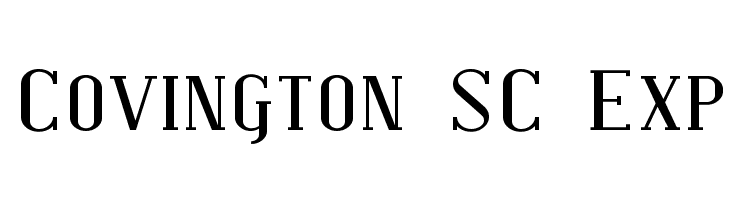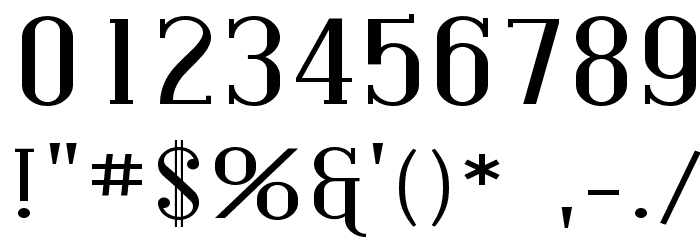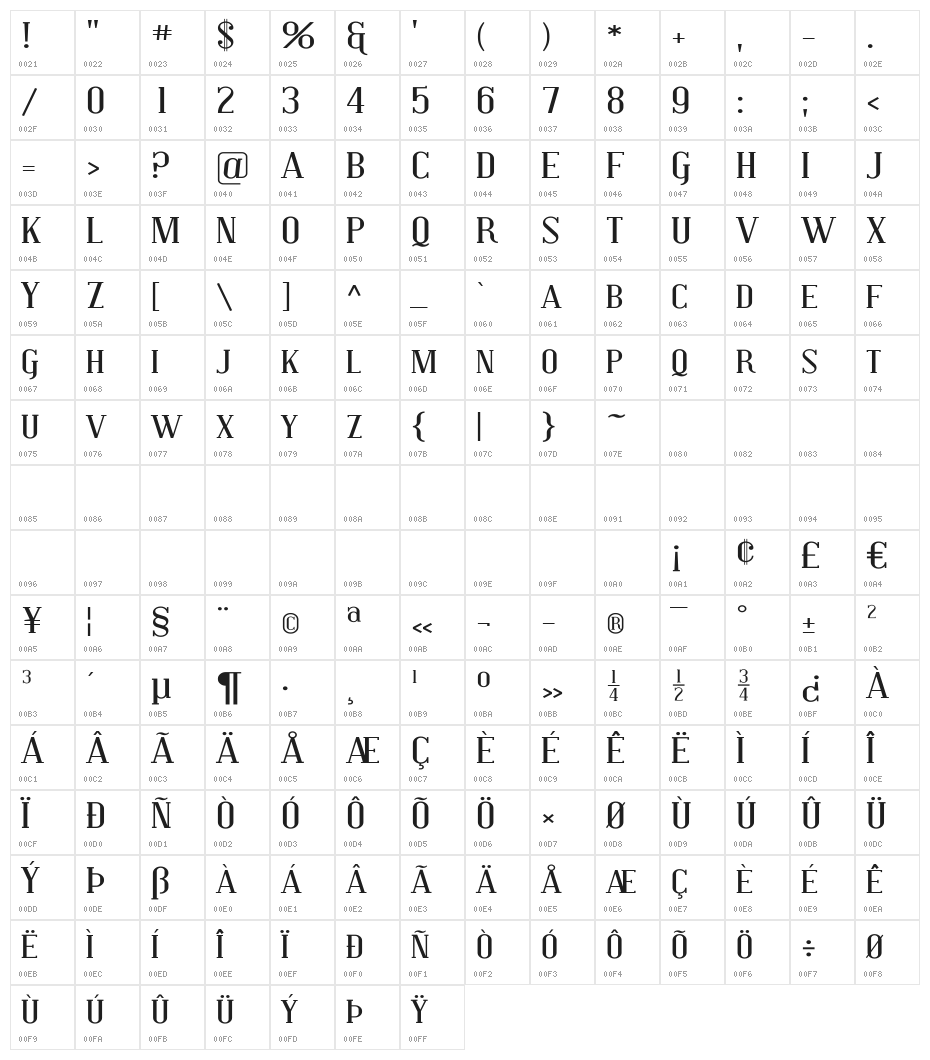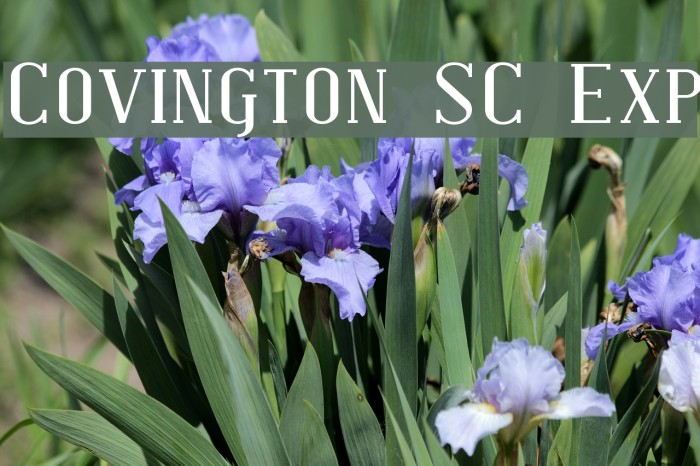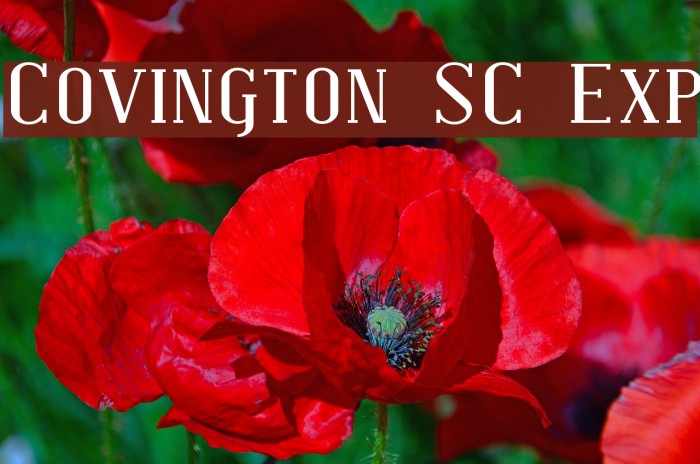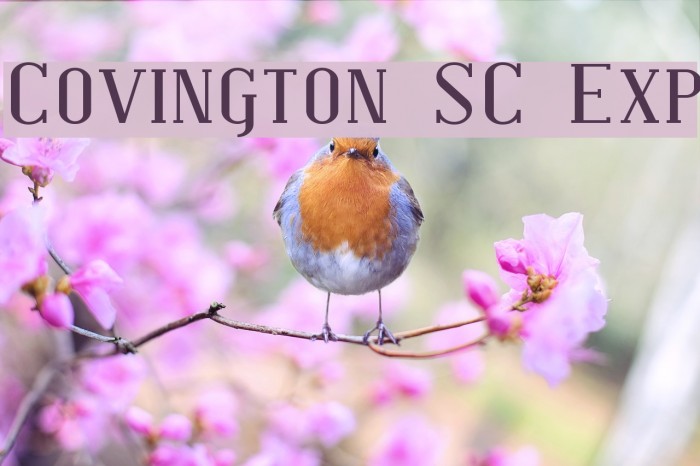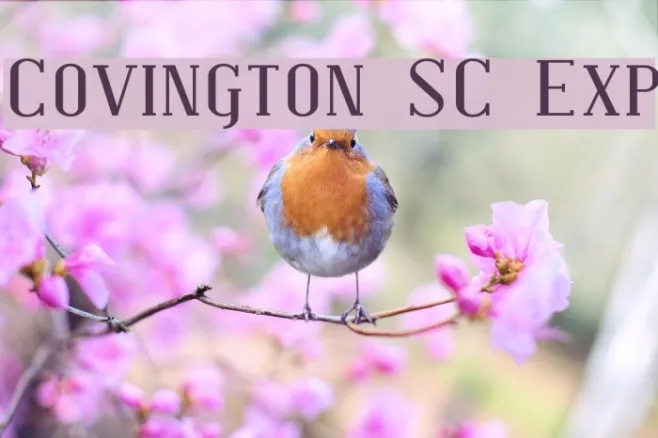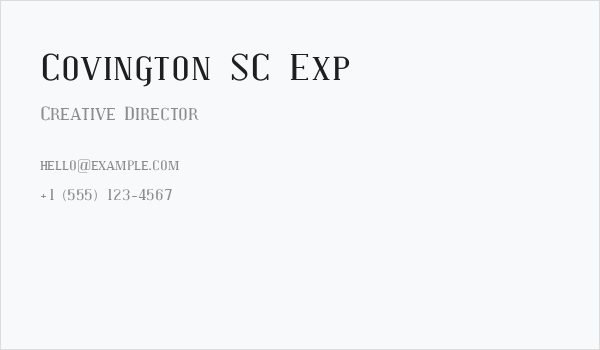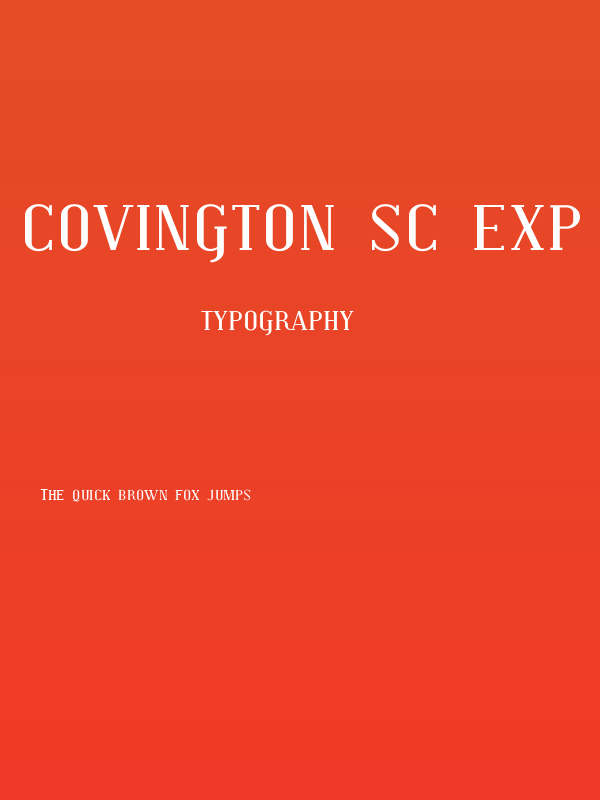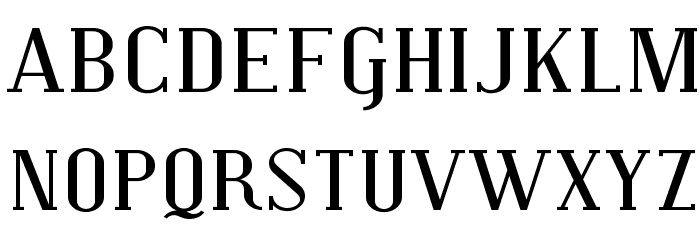
Covington SC Exp Font
Covington SC Exp Description
This font features a classic serif style with a modern twist, characterized by its elegant and elongated letterforms. The serifs are sharp and pronounced, giving the typeface a sophisticated and formal appearance. The uppercase letters are tall and commanding, while the lowercase letters maintain a consistent height, ensuring readability. The numbers are distinct and clear, with a uniform width that complements the overall design. Special characters are well-integrated, maintaining the font's cohesive aesthetic. The font's balance of traditional serif elements with contemporary design makes it versatile for various applications.
| Proposed Projects | Ideal for editorial design, book covers, branding, and formal invitations. |